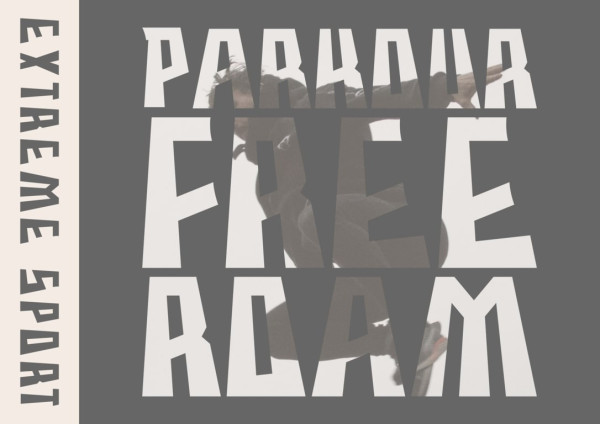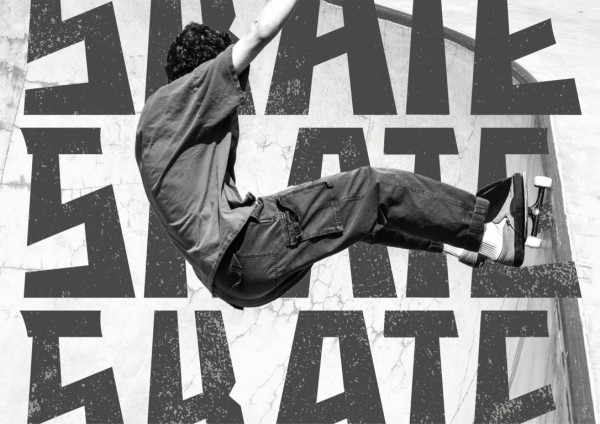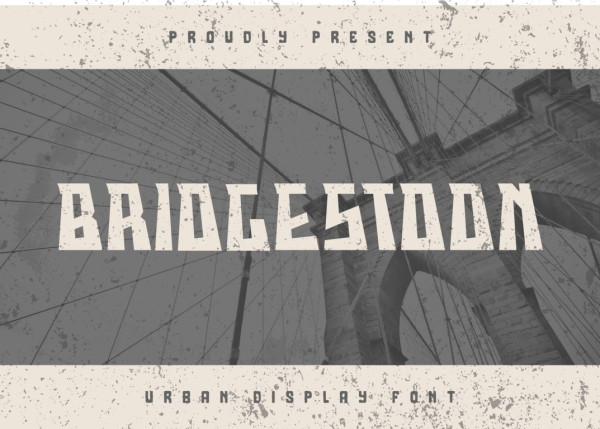
Bridgestoon Display Font
Bridgestoon Display Font a font that embodies tenacity and resilience, mirroring your indomitable spirit! With its industrial-inspired sans serif design, Bridgestoon Display Font is the ultimate choice for crafting impactful logos, captivating advertisements, and fashionable apparel designs. Embrace the rugged allure of BRIDGESTOON and unleash your creativity to make a fearless statement through your designs. Let BRIDGESTOON be the driving force behind your visual creations, igniting a powerful connection with your audience.